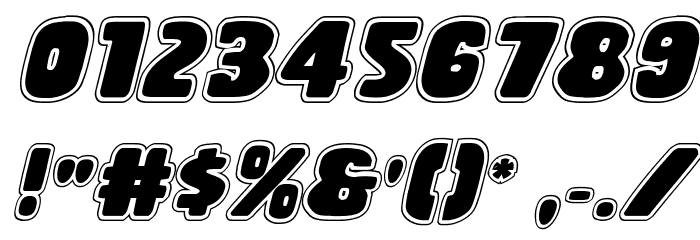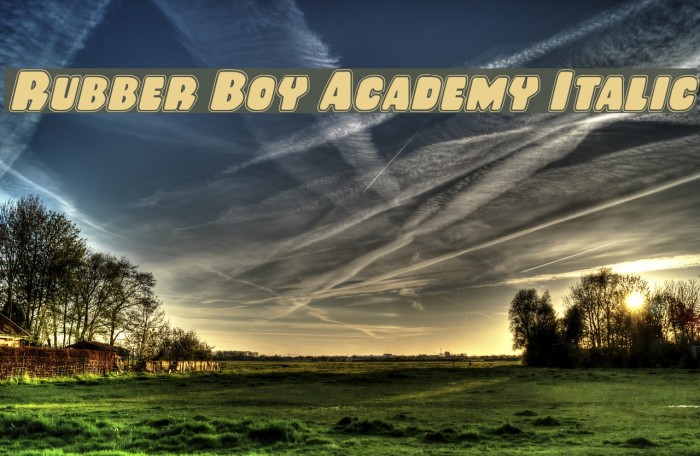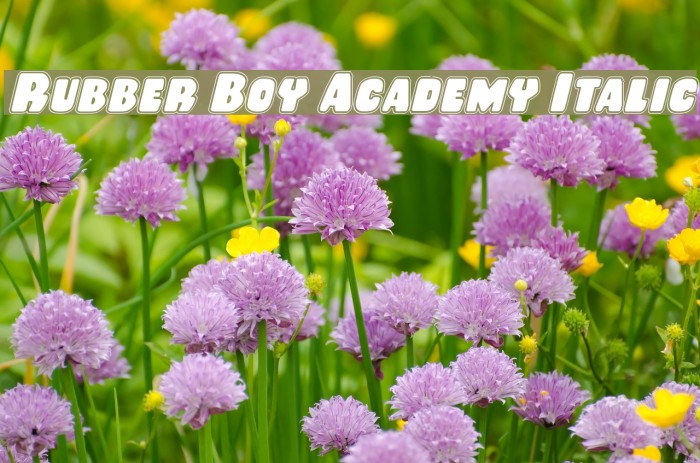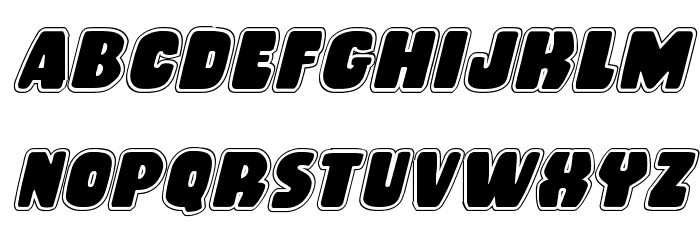
Rubber Boy Academy Italic Font
| 全体的なスタイル | Playful, Modern |
| おすすめプロジェクト | Ideal for children's book covers, playful branding, posters, and event flyers. |